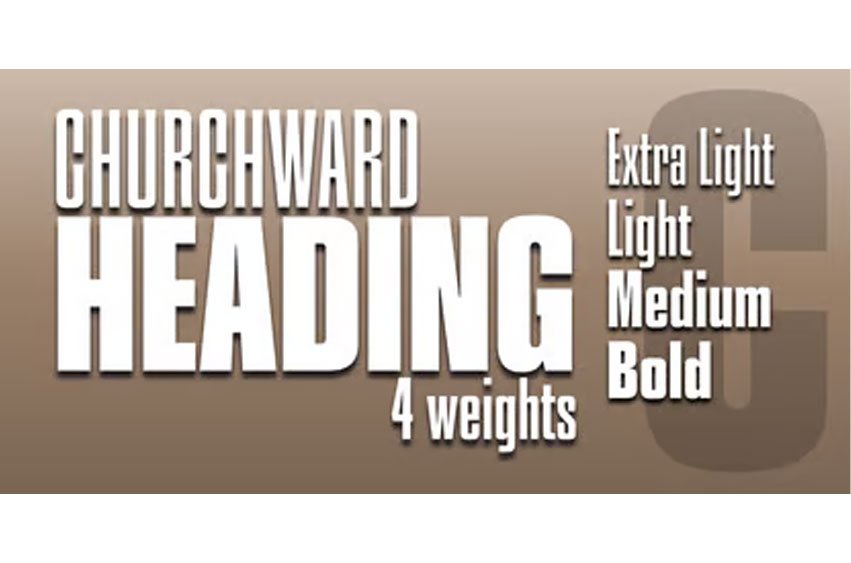
Churchward Heading Font
Churchward Heading Font was designed by the late Joseph Churchward. It is a very condensed design in four weights, Extra Light, Light, Medium, and Bold. The round letters are essentially straight with soft rounded corners and long terminal endings, resulting in a very elegant design.
The narrow width of each weight makes this a great font to use when space is limited. There’s something beguiling about a finely drawn condensed bold weight, and Churchward delivers on this one. The letters appear to be sculpted.